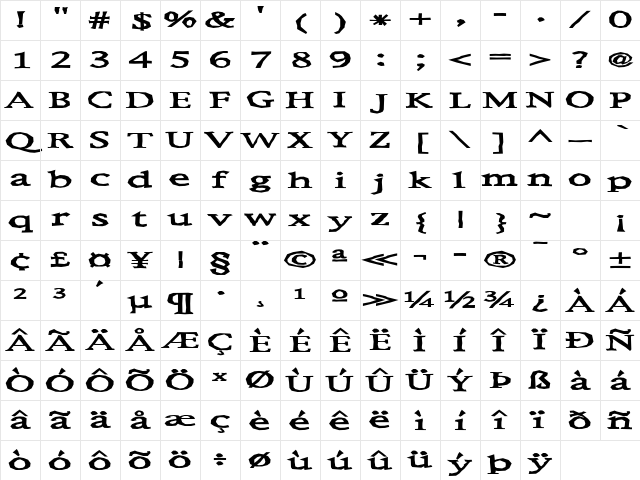
Complete B Medium glyph index. Displaying only characters natively supported by B Medium font.
B is a composed and adaptable typeface that performs quietly and consistently across a wide range of design contexts.